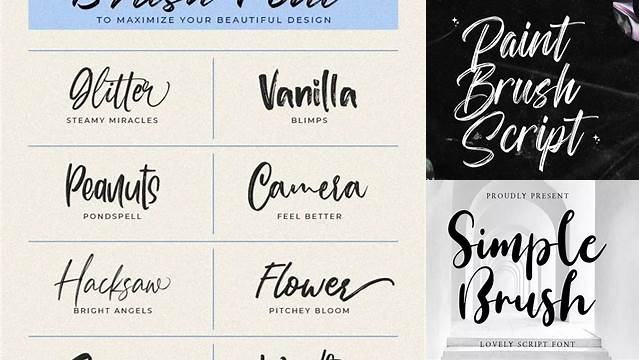
Free Brush Script Font Generator: Your Creative Guide
Brush Script Font Generator Free: Unleash Your Creativity
Hey everyone! Ever wanted to give your designs that cool, handcrafted vibe? Well, you're in luck! We're diving into the awesome world of brush script font generators, and the best part? They're totally free! This guide will walk you through everything you need to know to find the perfect brush script font for your projects, how to use the generators, and even some pro tips to make your designs pop. So, buckle up, because we're about to unlock a ton of creative potential! First, let's chat about why brush script fonts are so darn popular in the first place. Brush script fonts bring a personal, artistic touch to anything you're working on. Think about it: they're like a digital version of handwriting with a real brush. That organic feel makes them ideal for logos, invitations, social media graphics, and even website headers. They grab attention and give your work that unique, stylish flair that sets it apart from the crowd. Now, the beauty of a brush script font generator free is that it opens the doors for everyone to create. You don't need to be a professional designer to get access to these fantastic fonts. Many online tools are user-friendly, letting you experiment with different styles, sizes, and effects. So, whether you're a seasoned graphic designer or just starting, you're in the driver's seat when it comes to creating stunning visuals. The world is your oyster, and the best thing is that you don't have to spend a single penny to get started. With the right tools and a little bit of creativity, you'll be able to create stunning designs that look professional. Let's get into it!
Why Use Brush Script Fonts?
Okay, so we've established that brush script fonts are cool, but why are they so widely used? Well, it comes down to a few key reasons that designers and businesses love. First off, brush script fonts inject a sense of authenticity and personality. In a digital world, where everything can feel a bit sterile, a brush script font humanizes your brand. It gives your audience the feeling that there's a real person behind the work, that your brand has a soul. This is incredibly valuable in building trust and connection with your audience. Think about a wedding invitation: a sleek, modern font can be beautiful, but a brush script font immediately conveys warmth, love, and a handmade touch. It tells a story before anyone even reads the words. Secondly, brush script fonts are incredibly versatile. They can be adapted to fit many different styles. You can go bold and playful, or you can choose a more delicate and sophisticated font. This flexibility makes them ideal for many different projects. From creating logos to designing social media content, brush script fonts have the potential to make your brand stand out. Finally, brush script fonts are amazing at creating visual hierarchy. The natural flow and strokes of the letters instantly draw the eye, making them perfect for headlines, titles, and call-to-actions. They naturally guide the viewer through your message, which is key to effective communication. So, whether you want to express creativity, sophistication, or just make something visually appealing, brush script fonts have got you covered. When you decide to use a brush script font, you instantly give your design a personal and artistic touch.
Finding the Best Free Brush Script Font Generators
Alright, so you're ready to start creating, but where do you find these magical brush script font generators? Don't worry, guys, I've got you covered! There are several excellent options available online, and they're all free to use. You can use them to create incredible designs. Let's dive into some of the best ones out there. Firstly, websites like Font Squirrel and DaFont are treasure troves for free fonts. Both of these sites offer a vast selection of brush script fonts, with many options available for commercial use (but always double-check the licensing!). These are awesome places to browse and download fonts directly to your computer. You'll find fonts that range from elegant and delicate to bold and playful. Navigating the site is easy; simply search for "brush script" or browse the handwriting categories. It's super easy to find what you need. Another awesome resource is Canva. You can use Canva for all your design needs. Though it's technically a design platform, Canva also boasts a large library of fonts, including many stunning brush script options. And the best part is, you can use the fonts directly within your designs! This makes it super easy to preview and experiment with different fonts without needing to download anything. Then, there are specialized font generators, which are specifically designed to create your own brush script fonts. A great example is Calligraphr, which allows you to upload your handwriting or use their templates to create a custom font. While some features might require a paid subscription, there is often a free version that still offers tons of design options! Make sure that you explore these different platforms, compare their styles and features, and find the one that best suits your design needs. Using these sites, you'll have access to an incredibly diverse selection of brush script fonts. You'll be able to find the perfect style for your project, whether you're looking for something elegant, casual, or totally unique. So go out there and start exploring!
How to Use a Brush Script Font Generator
Okay, so you found a brush script font generator free that you love, but how do you actually use it? The process is generally pretty straightforward, but here's a step-by-step guide to help you get started. First, visit your chosen generator website. Most generators have a user-friendly interface, so you shouldn't have any trouble finding what you need. The first thing you'll want to do is enter the text you want to transform into a brush script font. Some generators allow you to type directly into a text box. Other tools let you import your own handwritten letters to create custom fonts. This depends on the tool, but the steps are the same. Most generators let you customize your fonts. Look for options to adjust the size, spacing, and style. You can often change the thickness, angle, and even the texture of the brush strokes. Experiment with these settings to get the look you want. Once you're satisfied with your font, you can typically download it in a standard format, such as .ttf (TrueType Font) or .otf (OpenType Font). These are widely compatible with most design software. After you've downloaded your new font, you'll need to install it on your computer. The process varies slightly depending on your operating system (Windows or Mac), but it's generally very easy. On Windows, right-click the font file and select "Install." On a Mac, double-click the file and then click "Install Font." Finally, open your design software (Photoshop, Illustrator, Canva, etc.) and choose your font. You should see your newly installed brush script font in the font selection menu. Select it and start typing! Once you are able to understand the process, you can start creating awesome designs! Remember, practice makes perfect. The more you experiment with different fonts and settings, the better you'll become at creating beautiful designs. Also, don't be afraid to try out different combinations. Combine a brush script font with a more basic font for headlines. This is the perfect way to create a balanced and visually appealing design.
Pro Tips for Using Brush Script Fonts Effectively
Alright, guys, you've got the fonts, you've got the generator, and now it's time to take your designs to the next level. Here are some pro tips to help you use brush script fonts effectively and create truly stunning work. First up: Choose the Right Font. Not all brush script fonts are created equal. Some are more casual, some are more formal, and some are just plain quirky. It's important to choose a font that complements the message and overall vibe of your design. If you're designing a logo for a high-end brand, for example, you'll probably want a more elegant, sophisticated font. But for a kids' party invitation, a playful, fun font might be more appropriate. Next up, Consider Readability. While brush script fonts are great for adding a personal touch, it's essential to make sure they are readable. Avoid using them for long blocks of text, because they can become tiring to read. Use them for headlines, titles, and short phrases, and make sure the font size is large enough. This is a good way to make sure that your audience can quickly understand your message. It's also important to pay attention to Spacing and Kerning. The space between individual letters (kerning) and the space between lines of text (leading) can significantly affect readability. Make sure your letters are spaced properly so that the words are clear and easy to understand. You can use many of the tools and features available on the website. If your font allows, you should also consider Color and Contrast. Color can play a big role in how a font is perceived. Brush script fonts often work really well with a wide range of colors, from bold and bright to soft and subtle. Make sure there's enough contrast between the font color and the background color to make the text stand out. Remember, the goal is to create a design that is both visually appealing and easy to understand. By following these pro tips, you'll be well on your way to creating designs that really make an impact!
Troubleshooting Common Problems
Conclusion: Unleash Your Creative Potential!
So, there you have it, guys! Everything you need to know about brush script font generators free and how to create amazing designs. We've covered why brush script fonts are so awesome, where to find them, how to use them, and even some pro tips to help you create designs. Remember that the most important thing is to experiment and have fun. Don't be afraid to try different fonts, colors, and layouts. The more you play around, the more you'll learn, and the more stunning designs you'll be able to create. You'll also be able to unleash your creative potential. With the right tools and a little bit of imagination, you can create stunning visuals that capture attention and leave a lasting impression. So get out there, download some fonts, and start creating! I can't wait to see what you come up with!